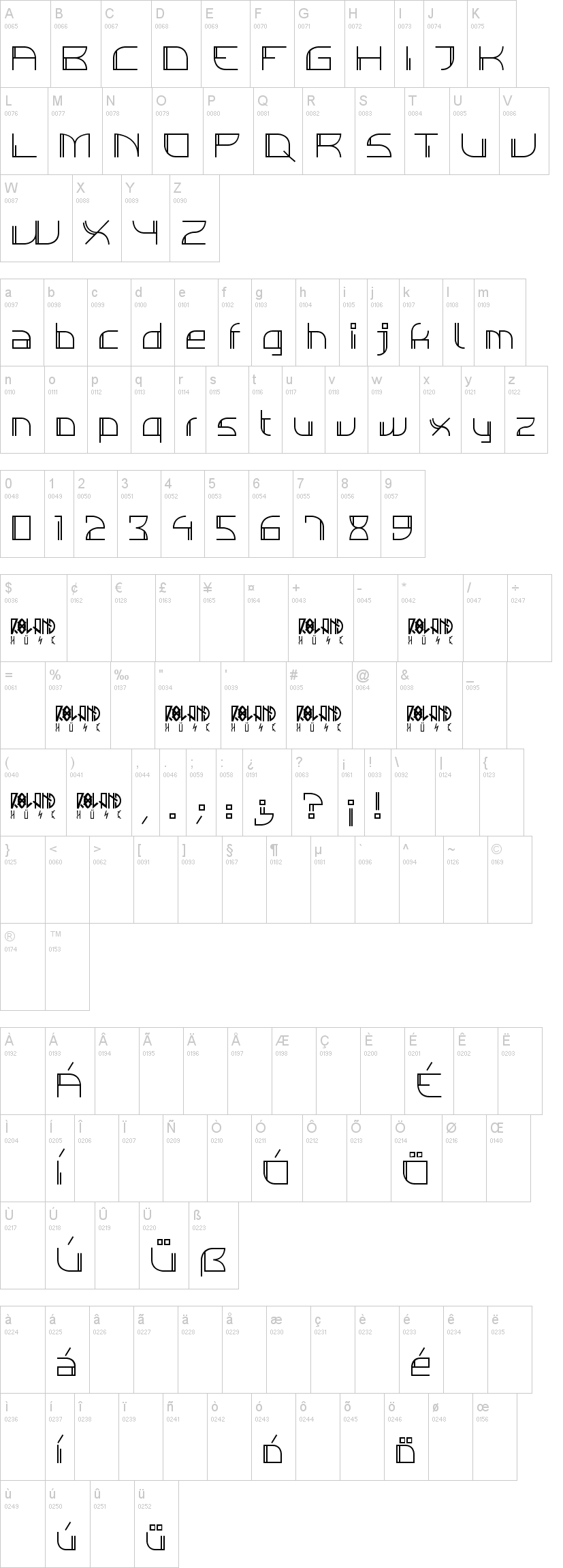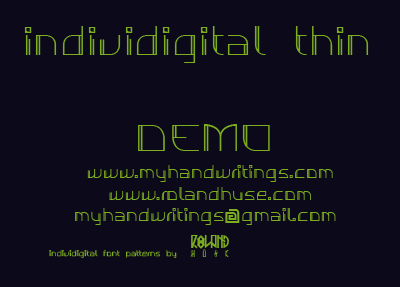
Note of the authorINDIVIDIGITAL THIN is a version of Individigital with decreased weight.Instead of the gaps, I used extra lines to get the digital feel.